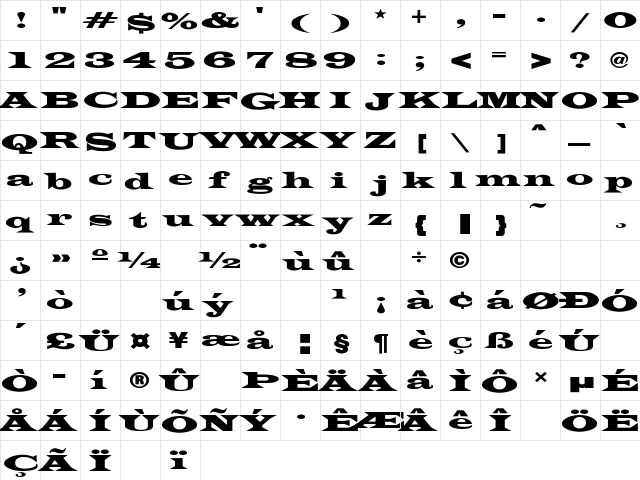
Latin-WideExt-Normal Regular Font Preview
Latin-WideExt-Normal Regular
Latin-WideExt-Normal Regular Font Details
Design Context for Latin-WideExt-Normal Typeface
Latin-WideExt-Normal takes a measured approach to typography — its balanced proportions and neutral character make it a reliable workhorse for both digital and print work.